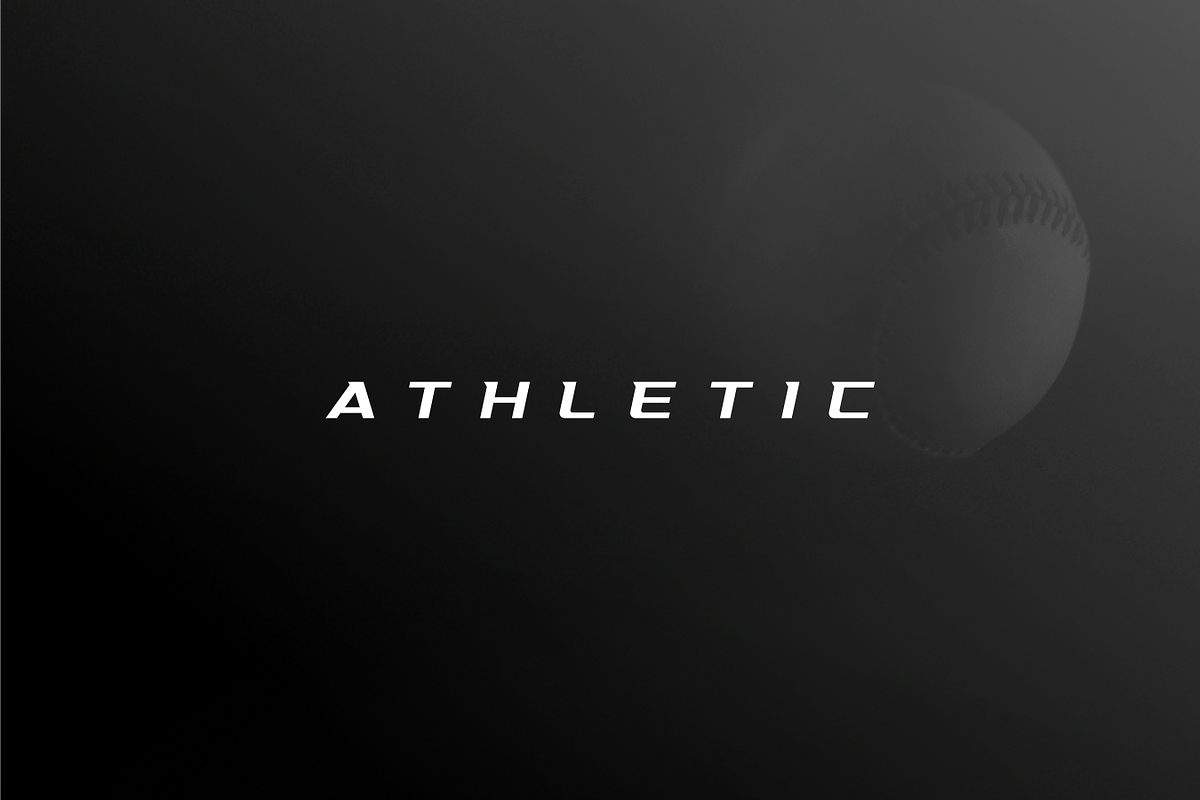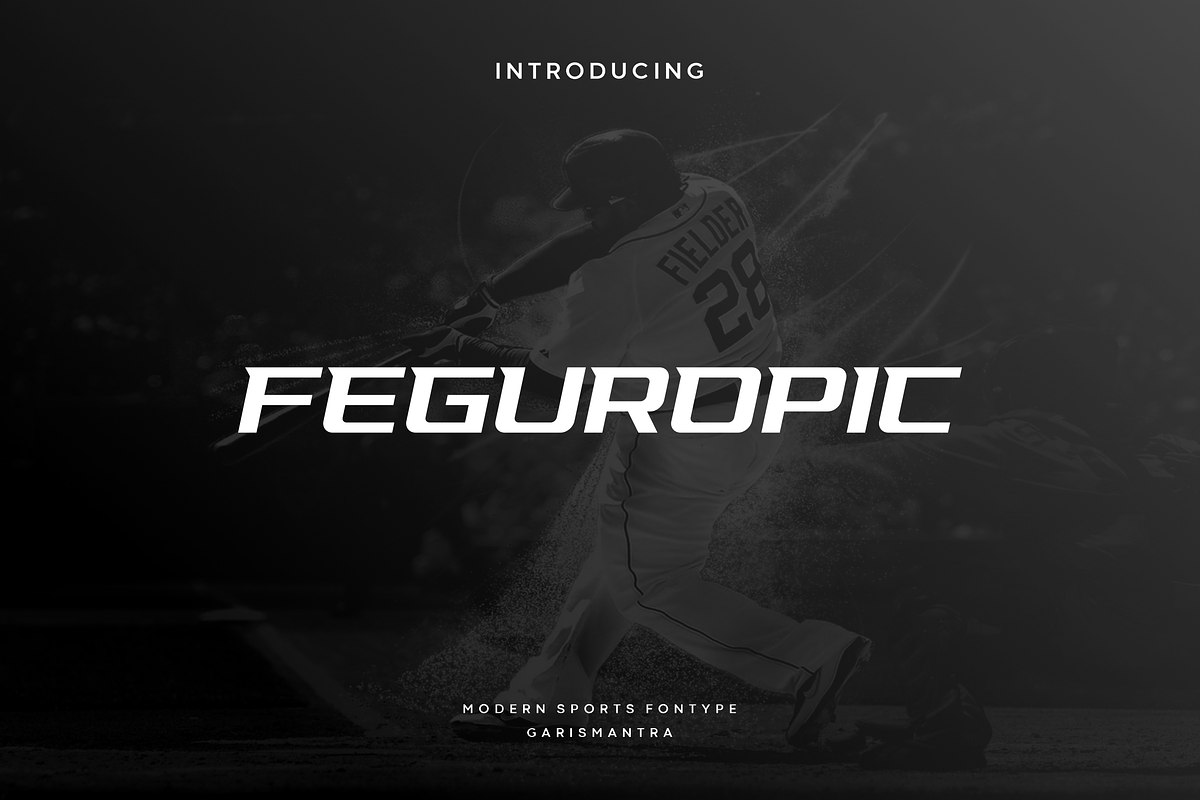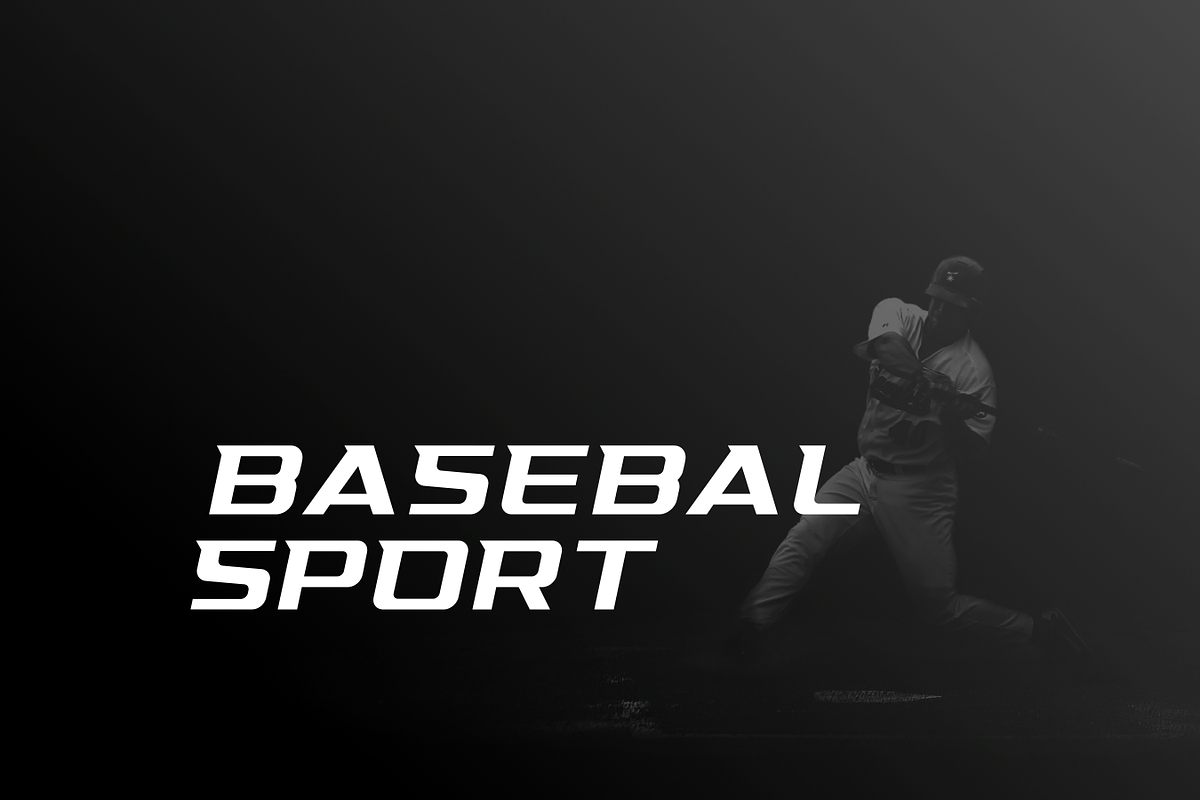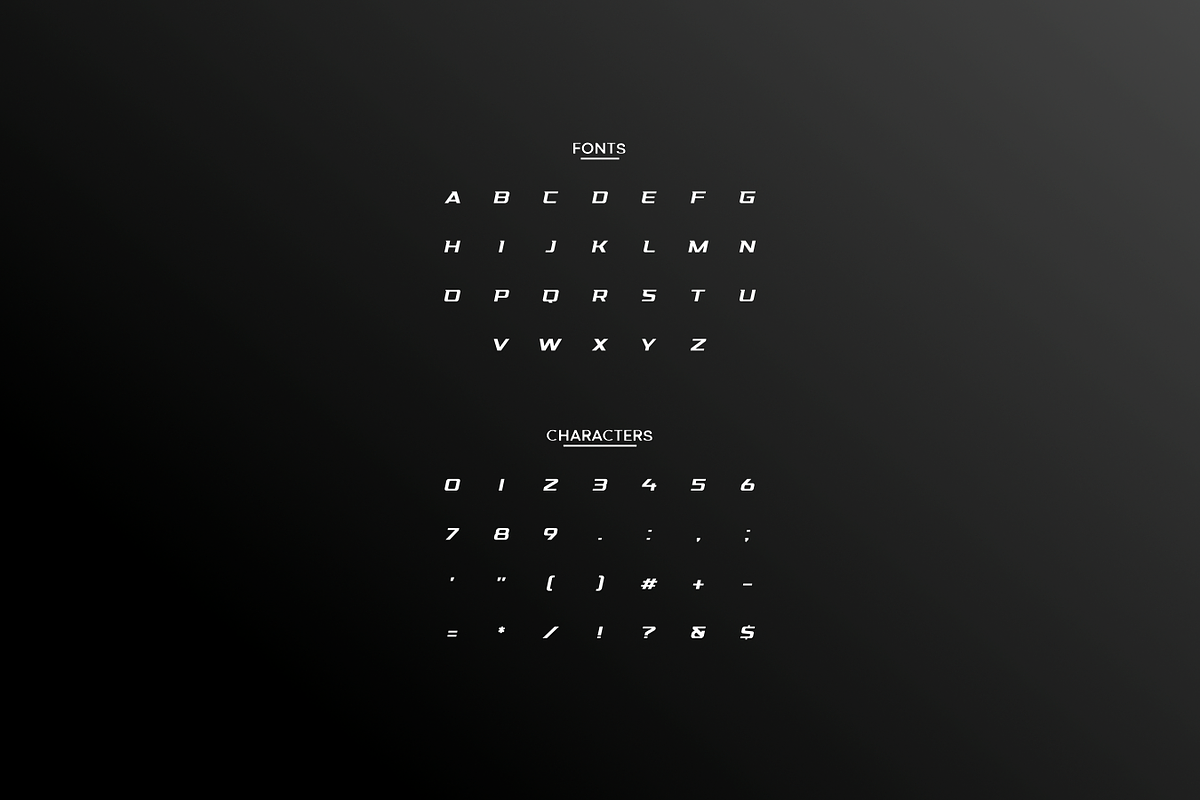
Feguropic
Feguropic an awesome sports font with wide italic fonts, modern cutouts, and dynamic slant. Ideal for fast car racing sports titles, running matches, cycling, automotive game logos and monograms or other modern dynamic text. Feguropic compare favorably with legibility and size, creating the effect of power and speed. Designed as a fast and dynamic font, but with a slightly different font design, check it out and grab it right away.